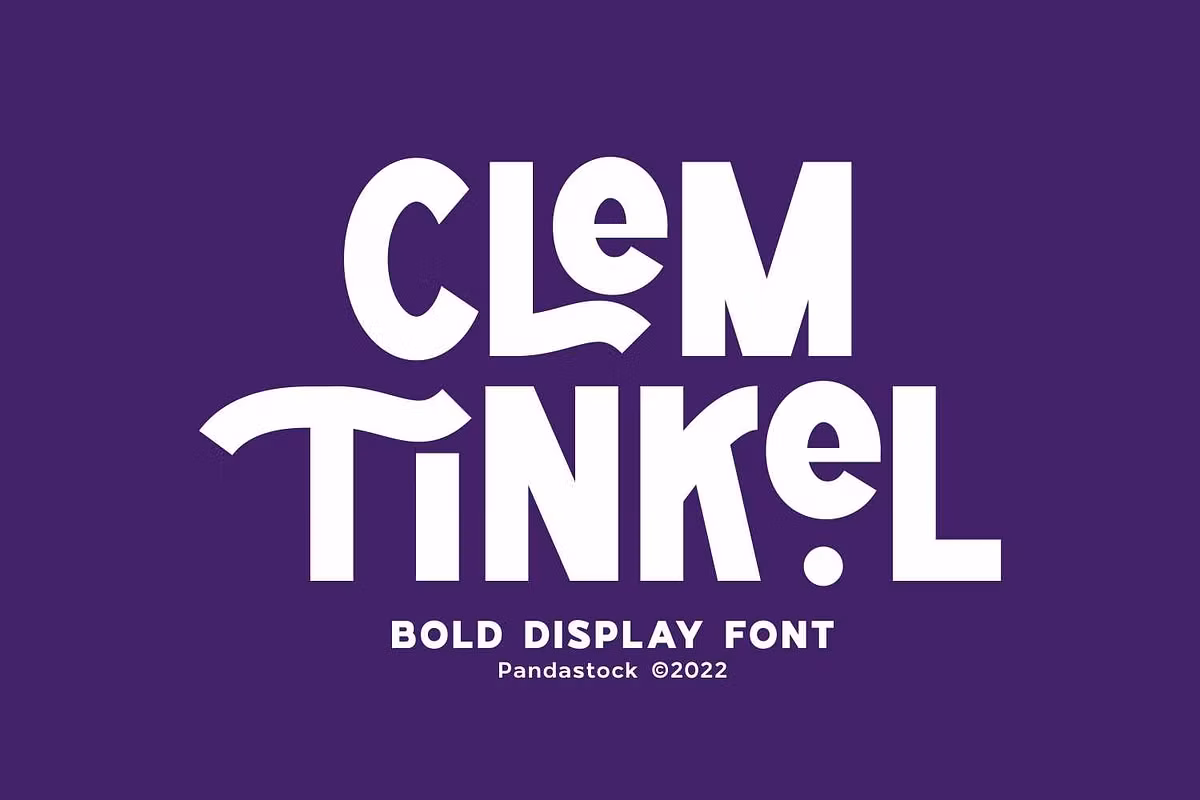
Clem Tinkel - Fun Fonts Free Download is a quirky and cheerful typeface bursting with personality. Designed with playful curves, bouncy baselines, and a whimsical handwritten feel, this font is perfect for children’s books, birthday invites, toy packaging, classroom decor, and any creative project that needs a pop of fun and friendliness.
Its lighthearted style makes Clem Tinkel ideal for both print and digital designs where approachability and joy are key. Whether you're crafting educational materials or playful brand visuals, this font brings smiles and charm to every letter.